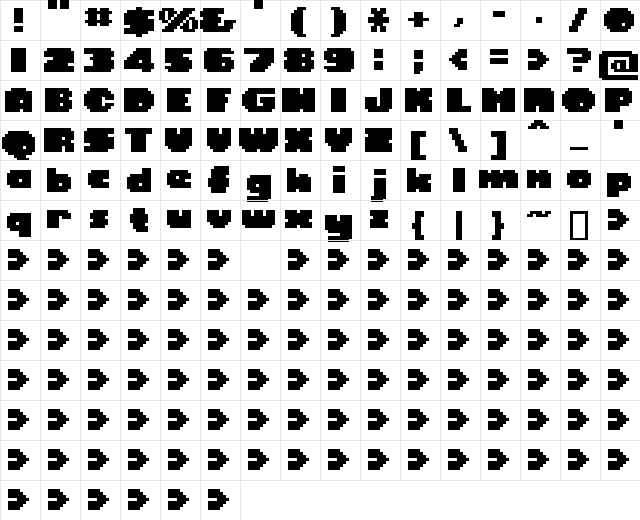
00Optimistix Bold
Design Context for 00Optimistix
00Optimistix is a composed and adaptable typeface that performs quietly and consistently across a wide range of design contexts. Its bold stroke weight gives it real presence on the page.